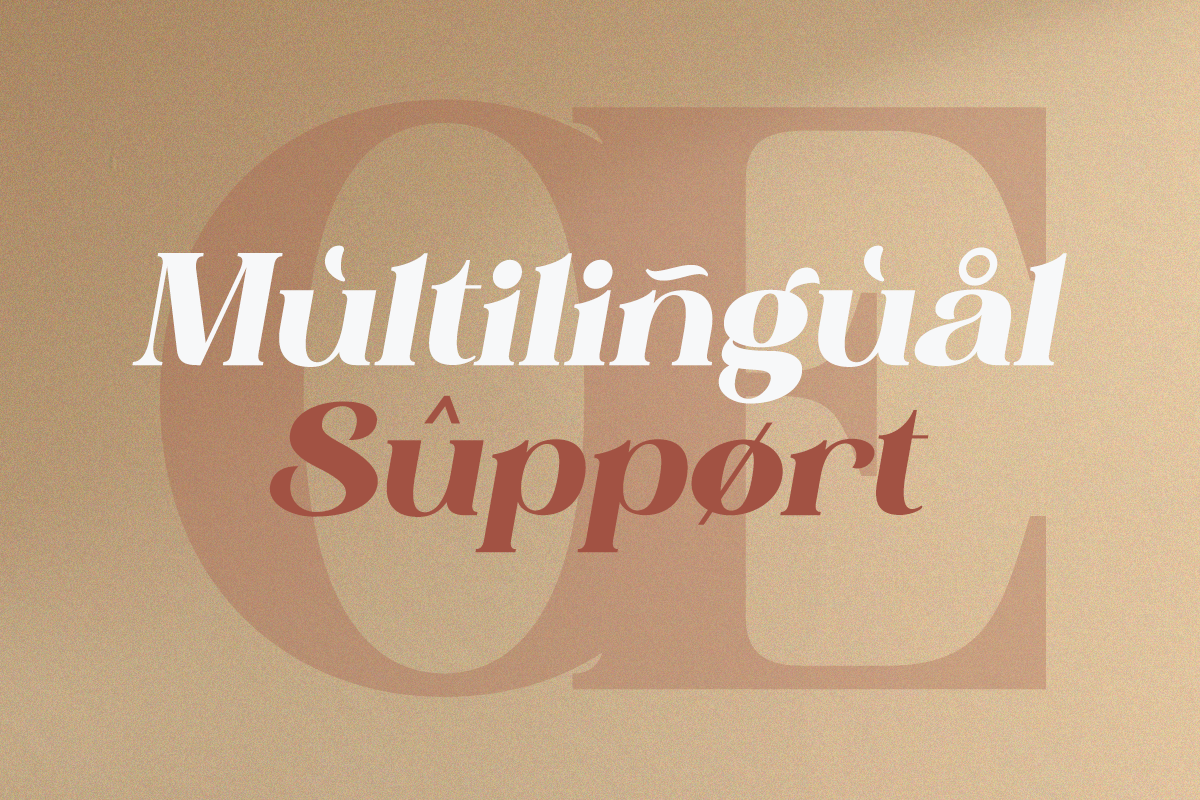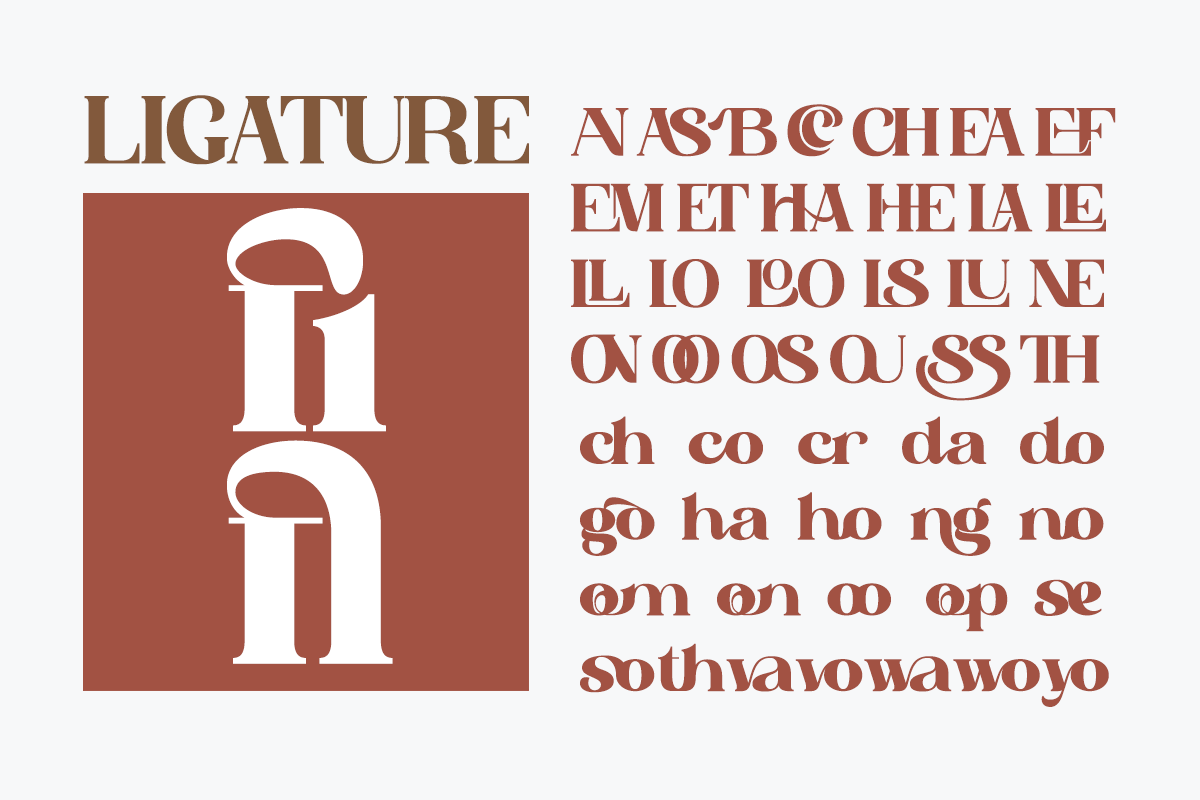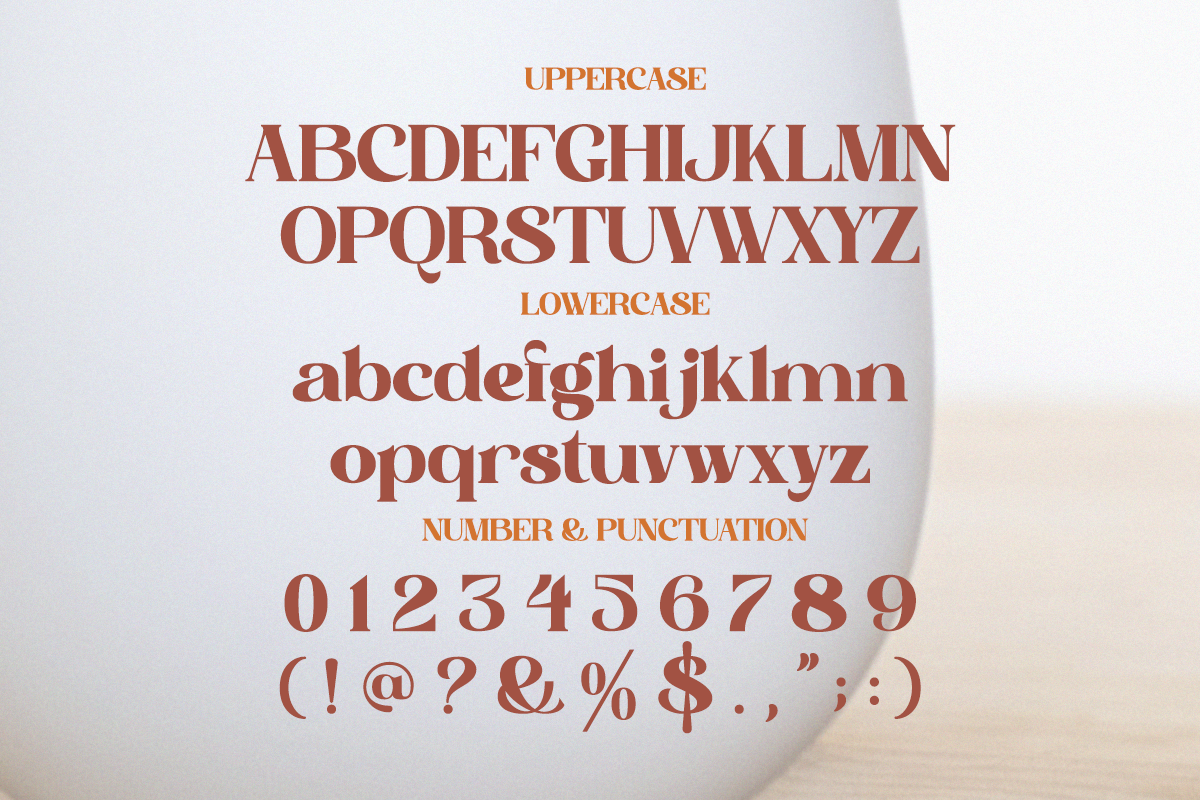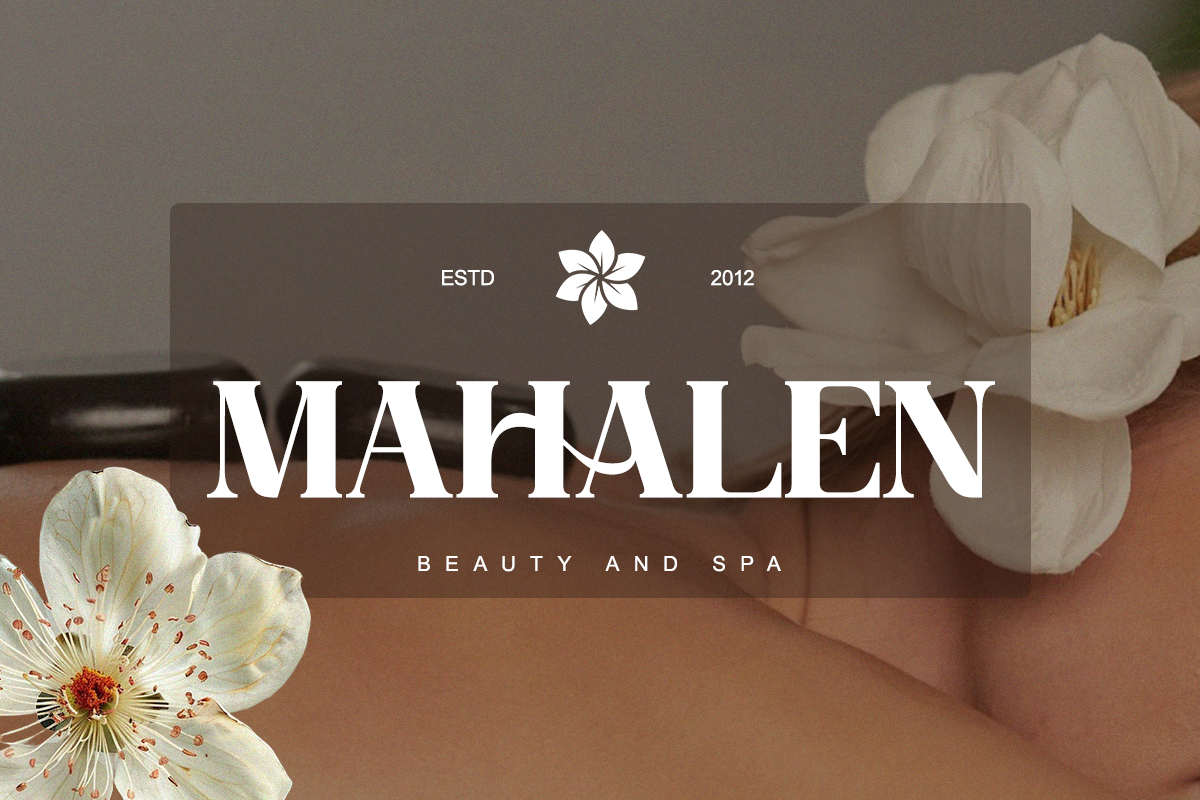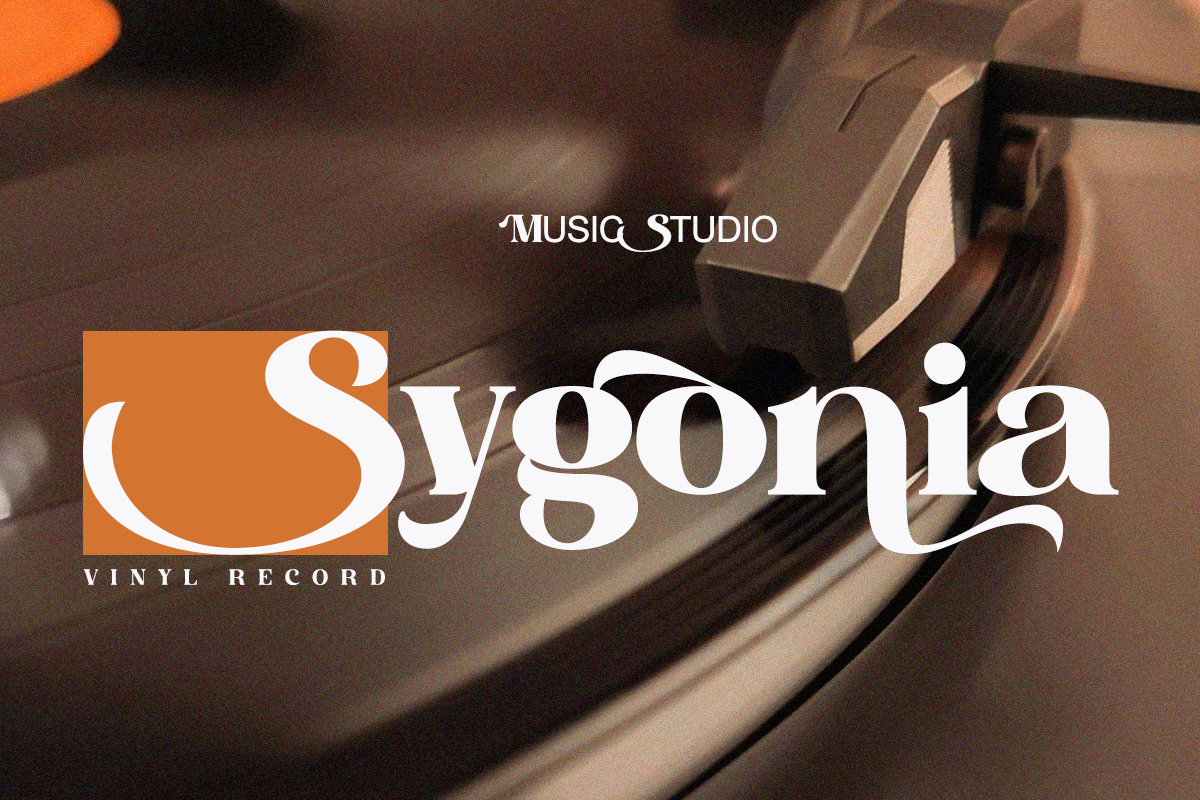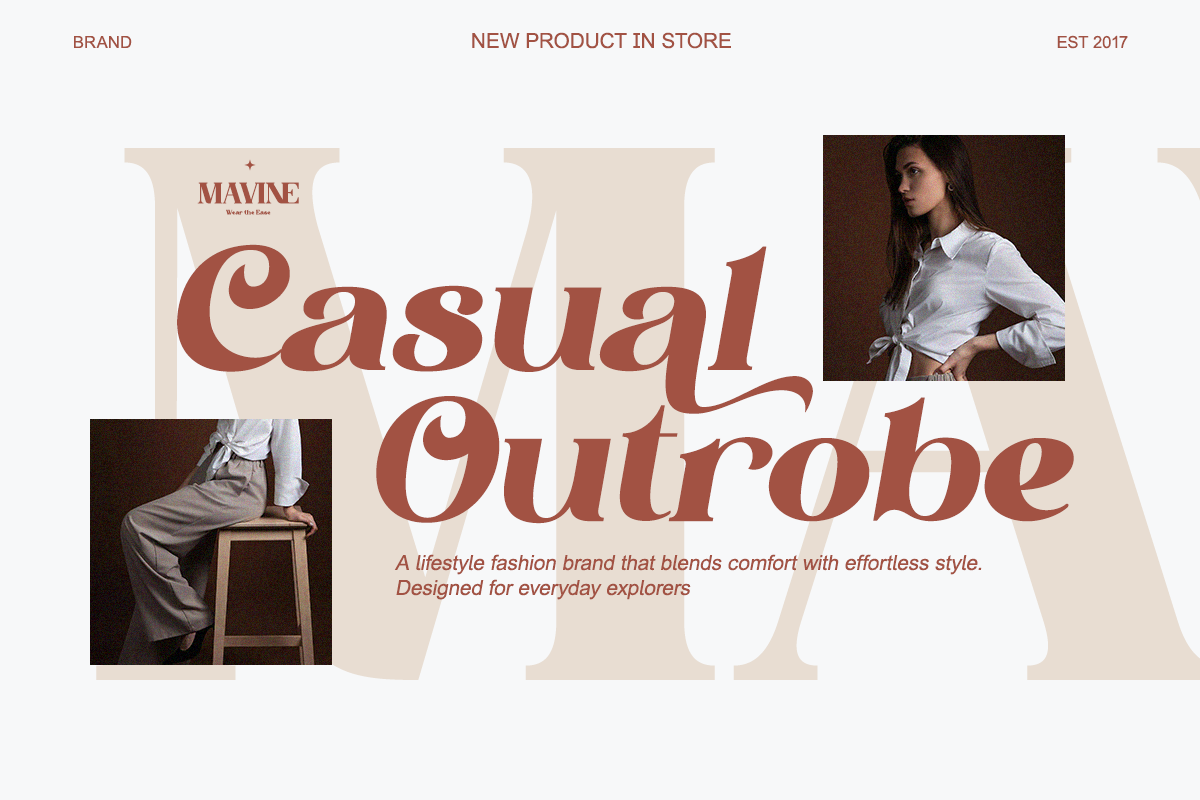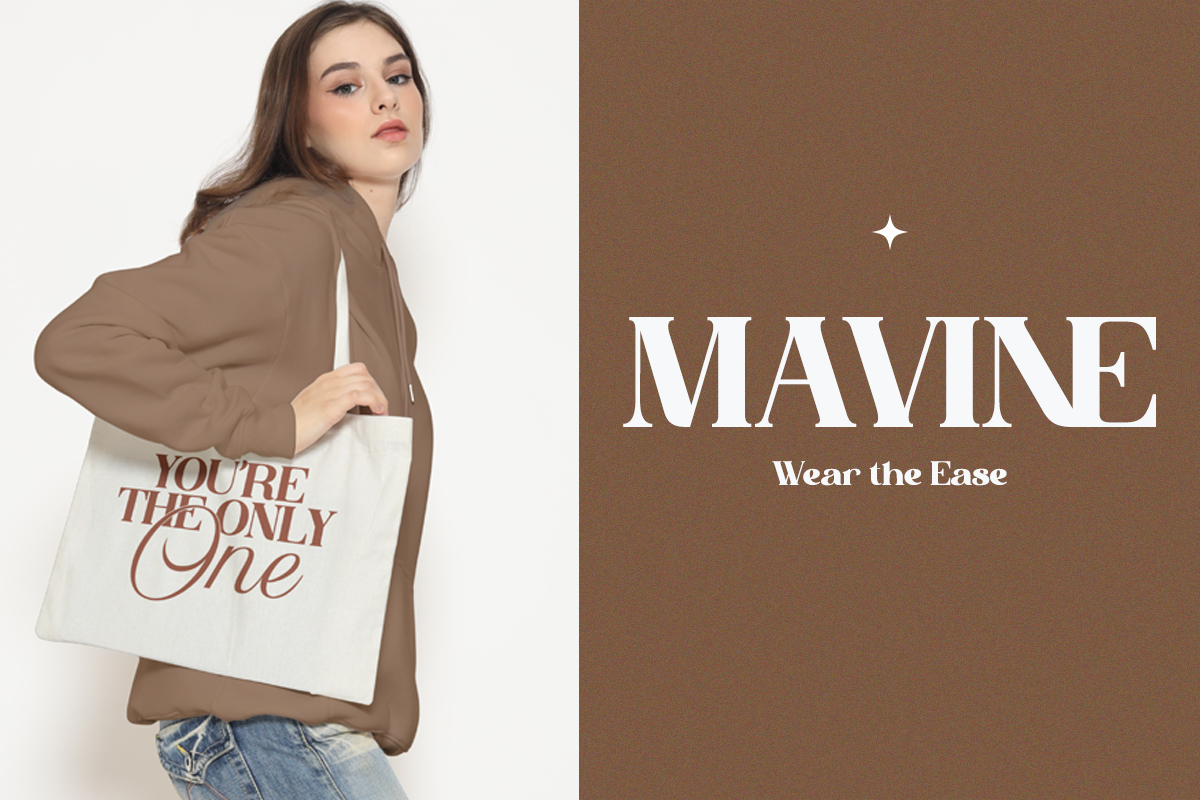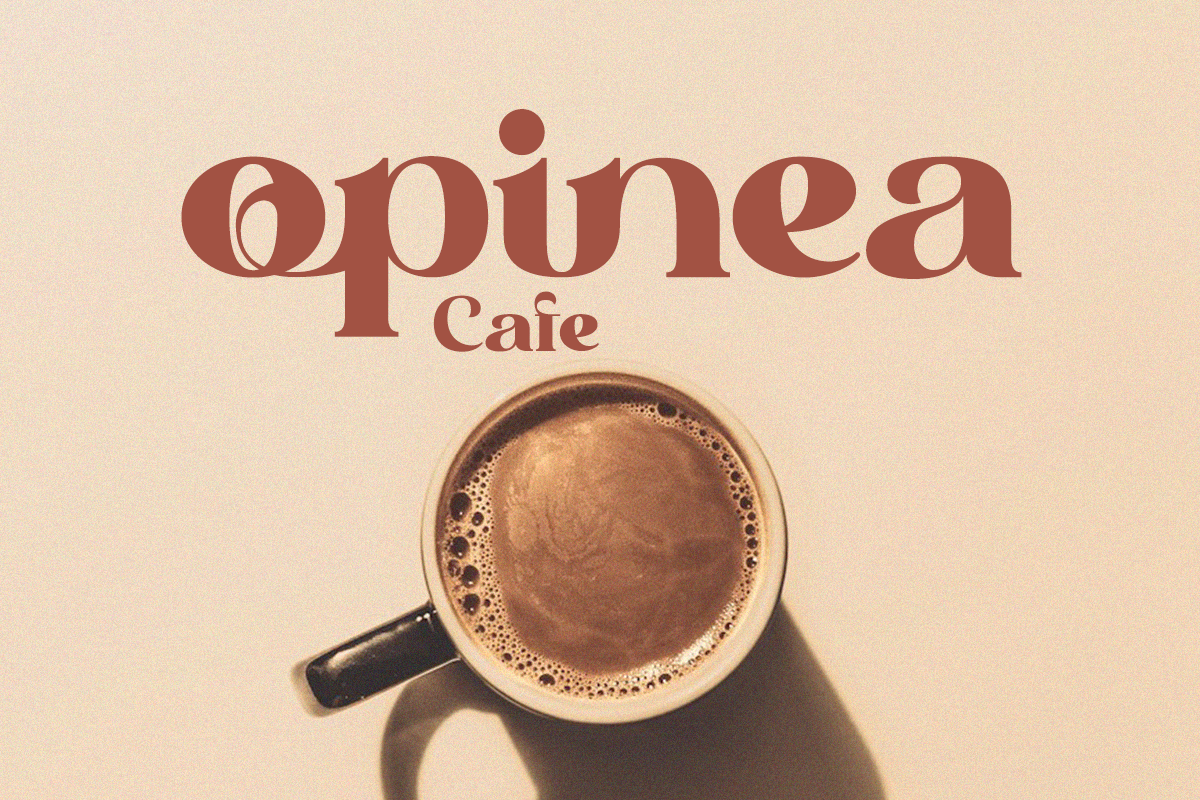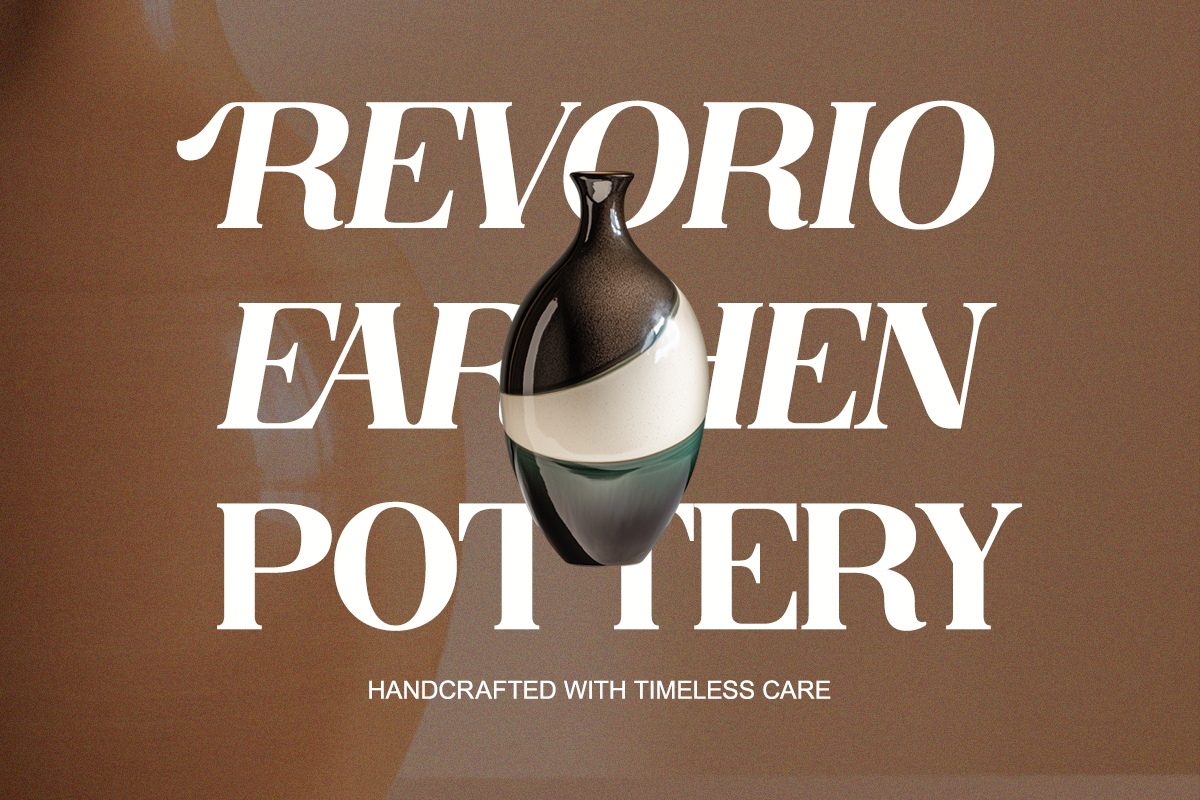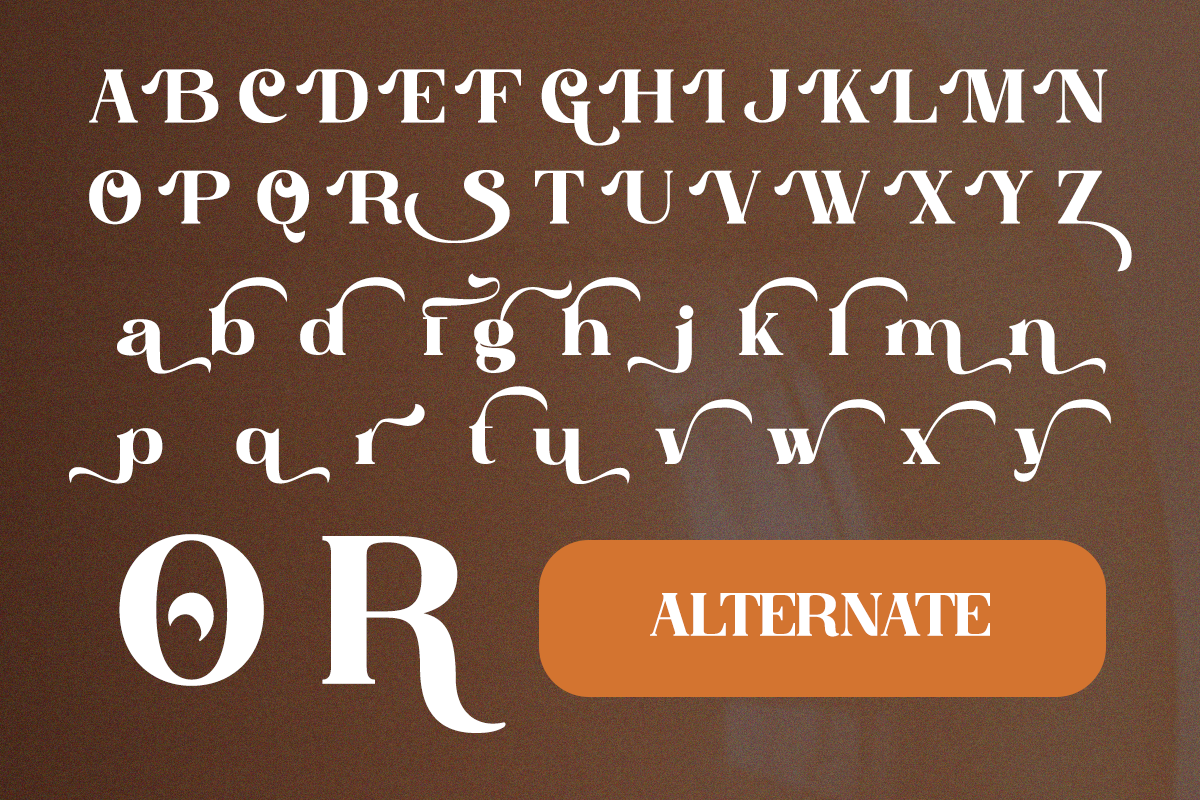
Galinoy - Bold Modern Serif Display
Introducing Galinoy, a bold serif display typeface built for impact. Its strong strokes and balanced curves make it ideal for branding, editorial layouts, posters, and statement logos.
Perfect for designers looking to create bold, confident, and professional visuals.
- Alternates & ligatures
Use For Brand identity, editorial headlines, magazine covers, posters, packaging, social media.